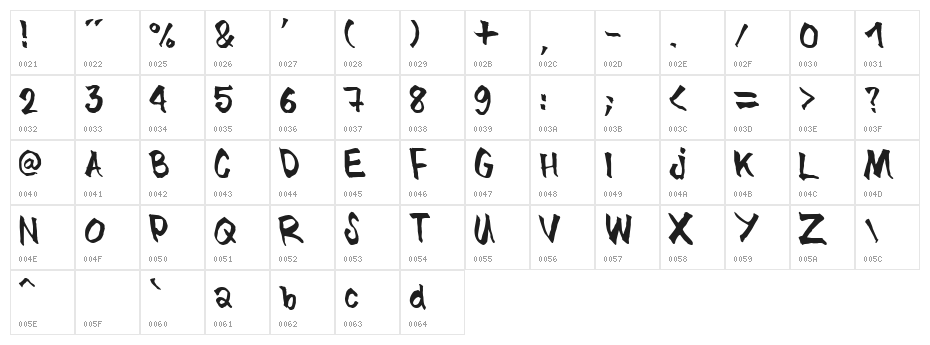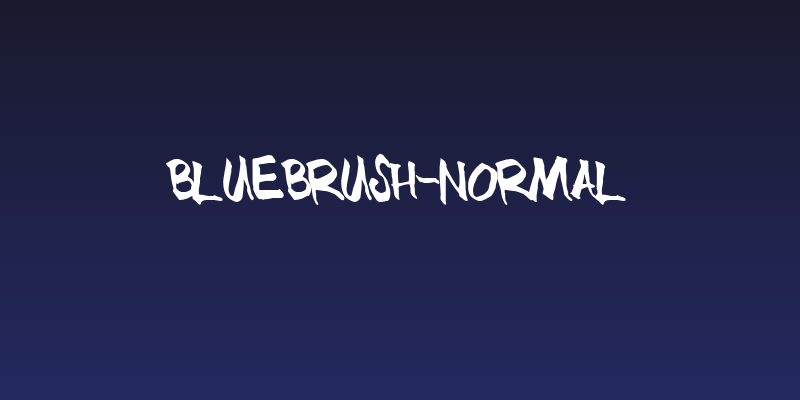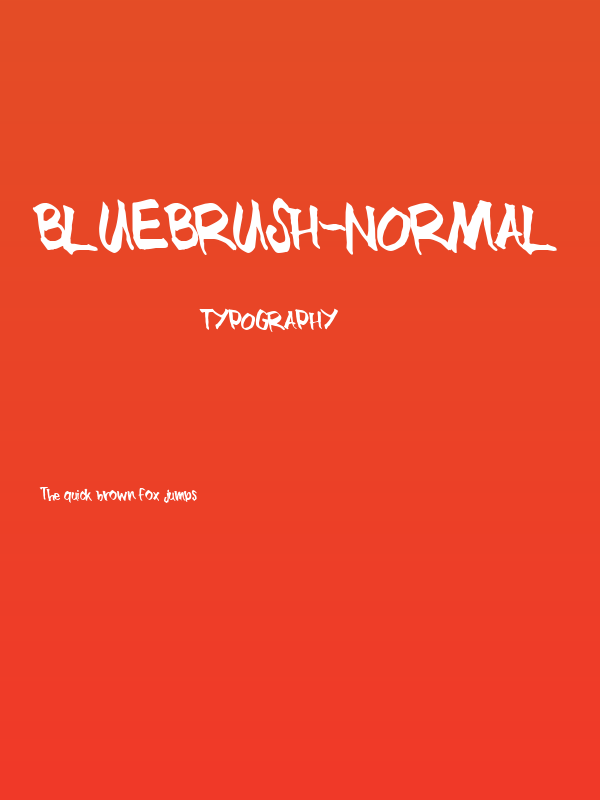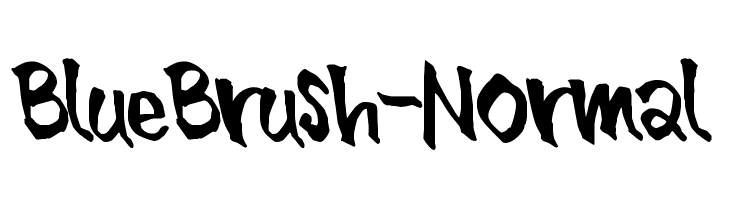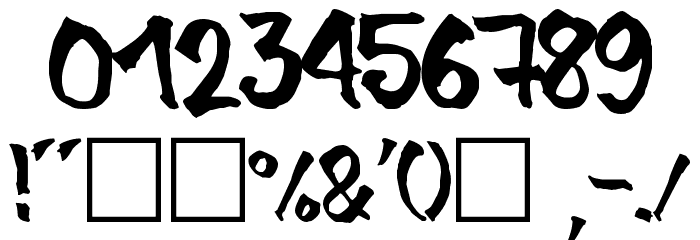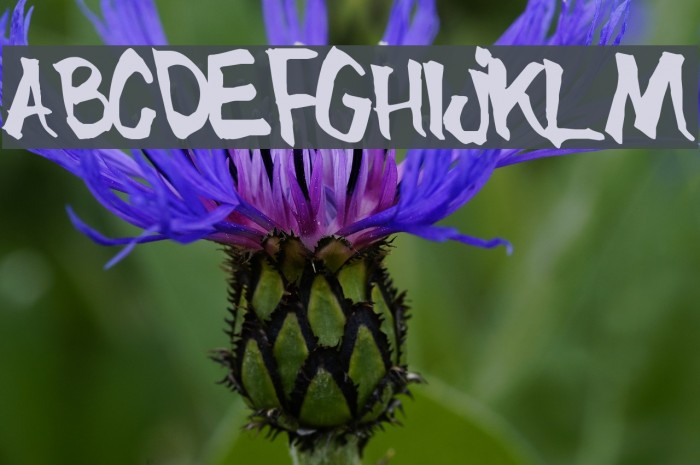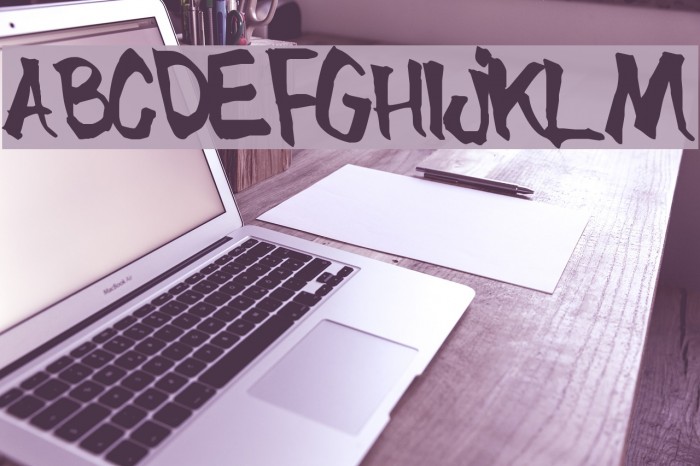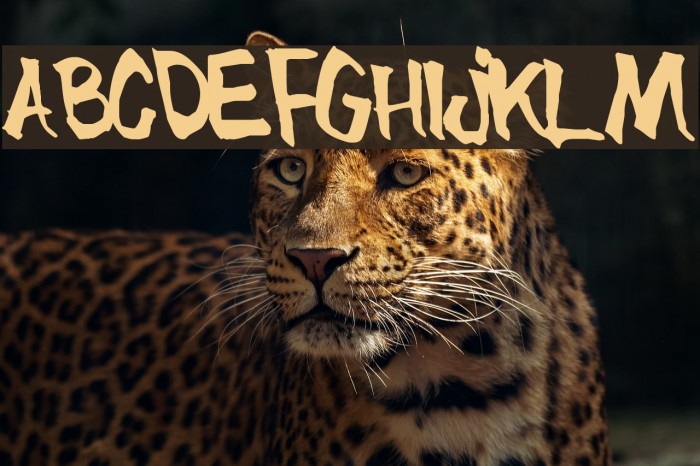
BlueBrush-Normal Font
BlueBrush-Normal Description
This font features a bold, expressive brush style that exudes energy and creativity. The characters are crafted with a hand-painted appearance, showcasing irregular strokes and varying thicknesses that add a dynamic and artistic flair. The uppercase and lowercase letters maintain a consistent style, with a playful yet legible design. Numbers and special characters follow the same aesthetic, ensuring a cohesive look across all text. This font's unique style makes it ideal for projects that require a personal touch or an artistic edge.